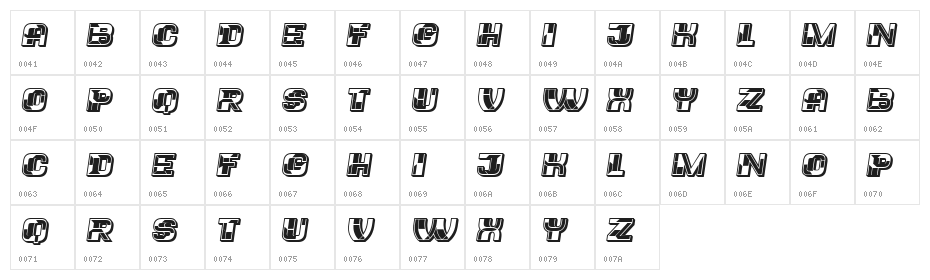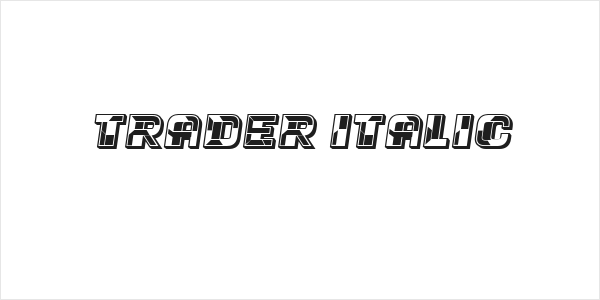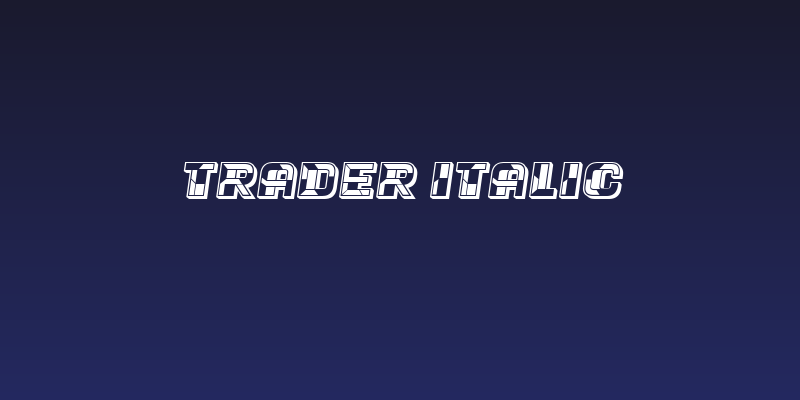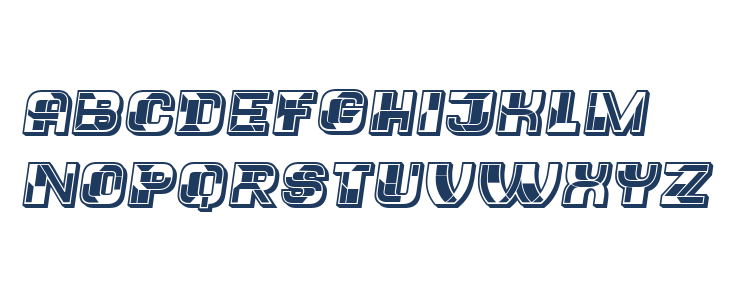
Trader Italic Font
Trader Italic Description
This font features a bold, geometric design with a distinct italic slant, creating a dynamic and modern appearance. The characters are outlined with a thick black border, enhancing their visibility and impact. The interior of each letter is filled with a pattern of diagonal stripes, adding a unique texture and depth. The overall style is both futuristic and playful, making it suitable for eye-catching designs. The uppercase letters are uniform in height, contributing to a cohesive and structured look. This font is ideal for projects that require a strong visual presence and a touch of creativity.